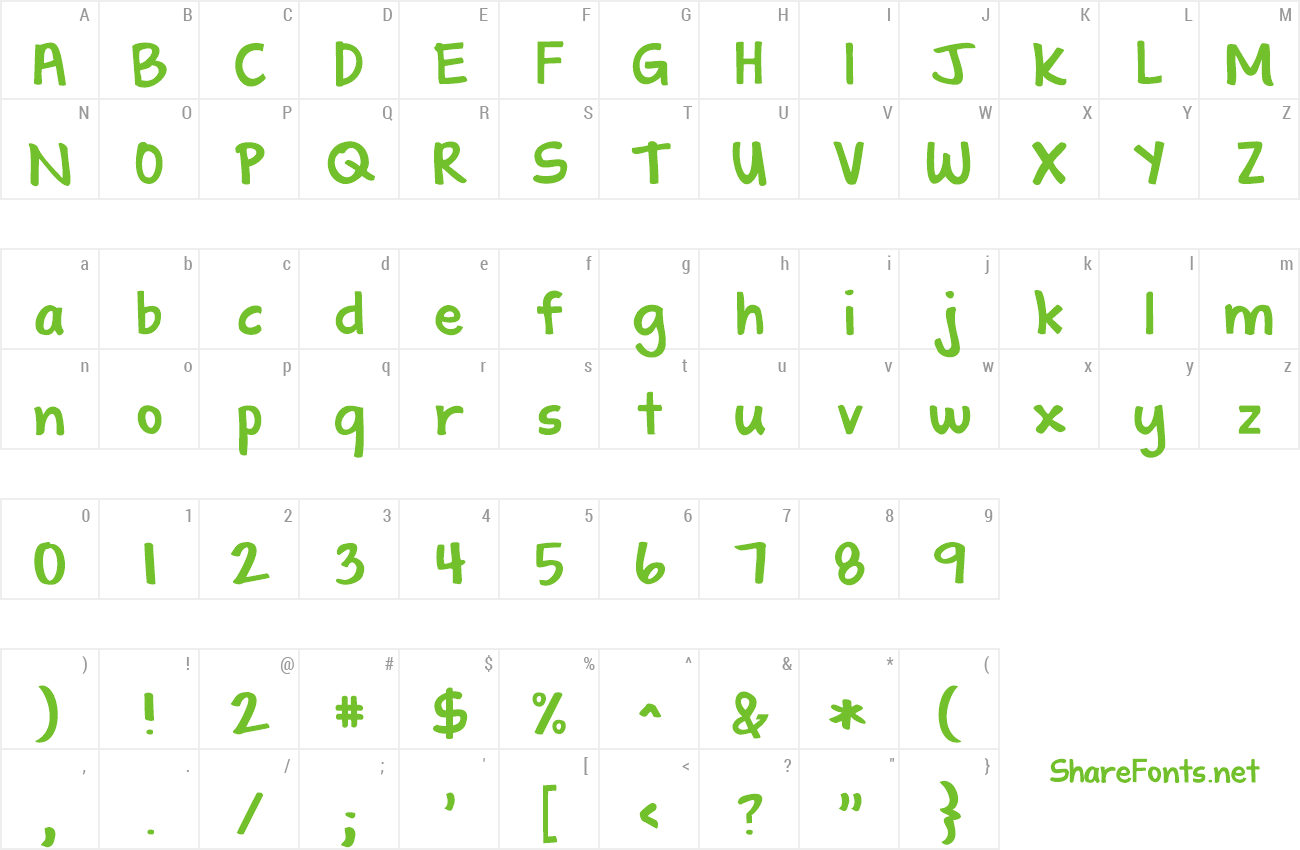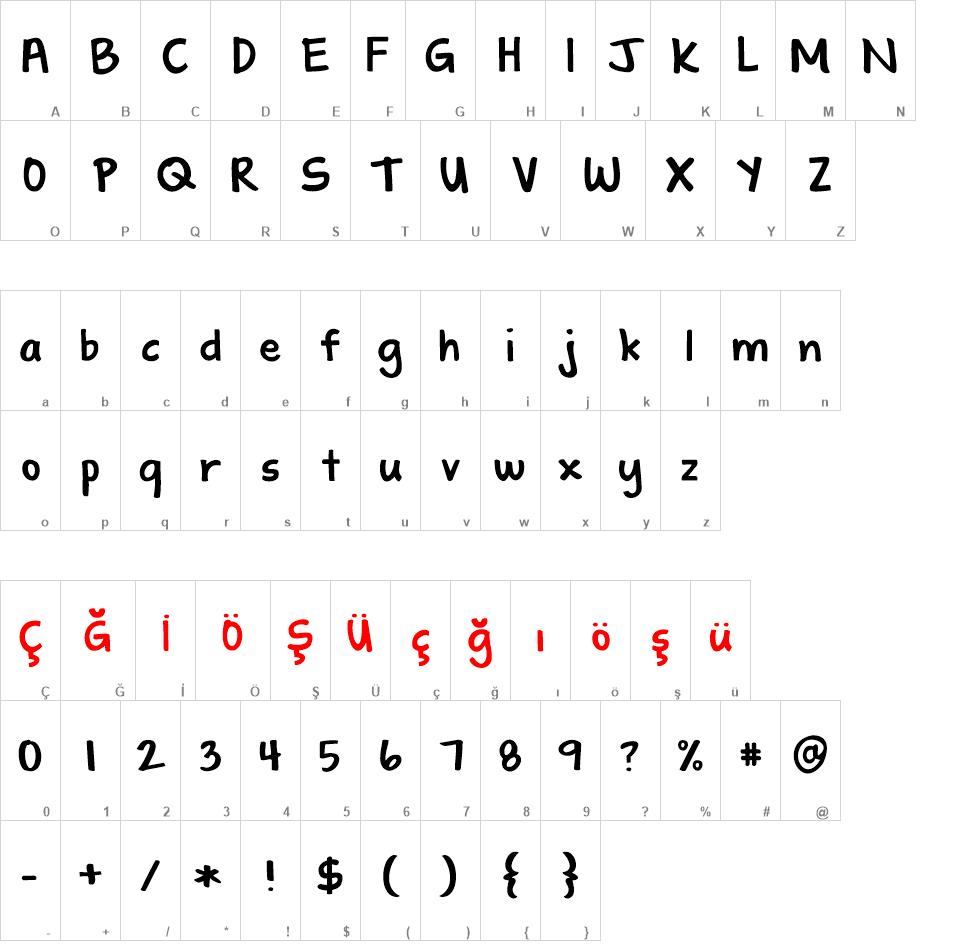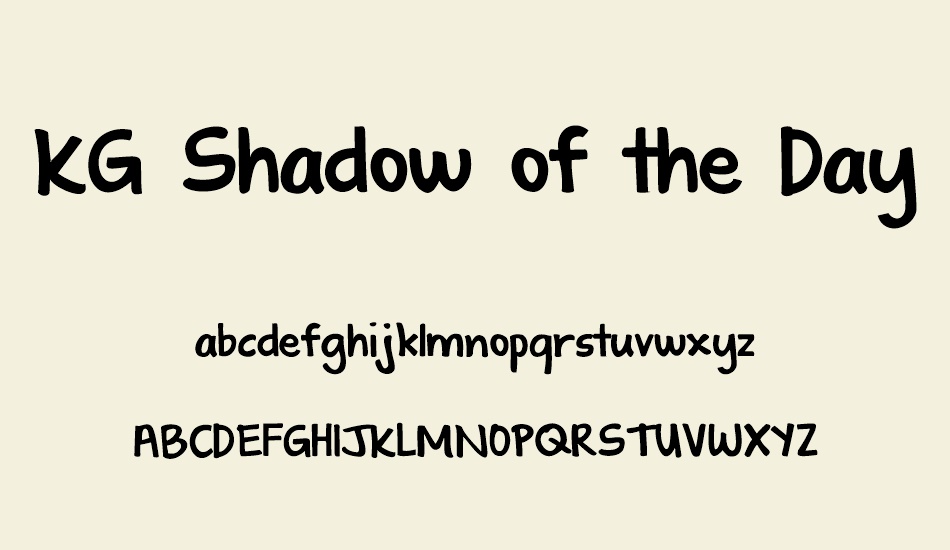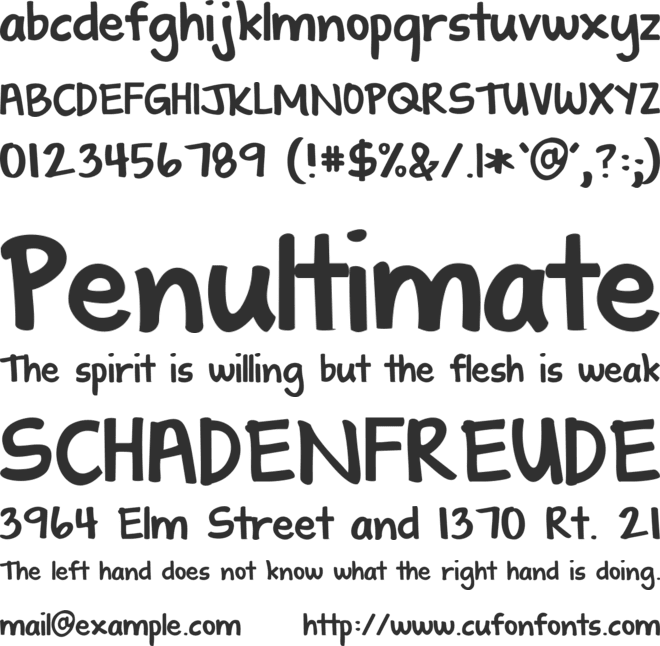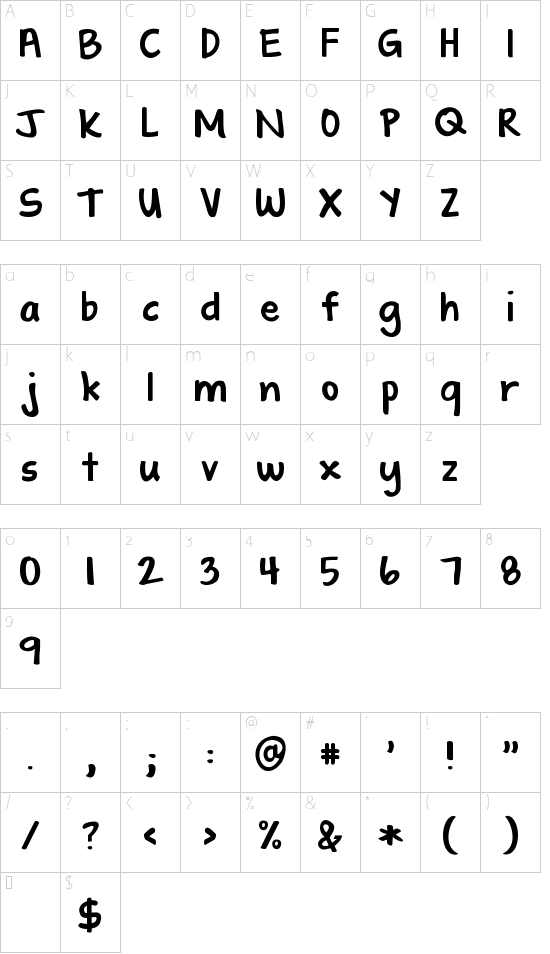
Kg Shadow Of The Day Font
Kg Shadow Of The Day Font - This typeface has two styles and was. Copyright (c) 2011 by kg shadow of the day. Kg shadow à € by kimberly geswein. 206,394 downloads (14 yesterday) 2 comments. Web designed by kimberly geswein, kg shadow of the day is a hand drawn font family. Kg shadow of the day.
Web designed by kimberly geswein, kg shadow of the day is a hand drawn font family. This typeface has two styles and was. Kg shadow à € by kimberly geswein. 206,394 downloads (14 yesterday) 2 comments. Kg shadow of the day. Copyright (c) 2011 by kg shadow of the day.
This typeface has two styles and was. Web designed by kimberly geswein, kg shadow of the day is a hand drawn font family. Kg shadow à € by kimberly geswein. Kg shadow of the day. Copyright (c) 2011 by kg shadow of the day. 206,394 downloads (14 yesterday) 2 comments.
This typeface has two styles and was. 206,394 downloads (14 yesterday) 2 comments. Copyright (c) 2011 by kg shadow of the day. Kg shadow of the day. Web designed by kimberly geswein, kg shadow of the day is a hand drawn font family.
Kg shadow of the day. Web designed by kimberly geswein, kg shadow of the day is a hand drawn font family. Kg shadow à € by kimberly geswein. 206,394 downloads (14 yesterday) 2 comments. This typeface has two styles and was.
Kg shadow of the day. 206,394 downloads (14 yesterday) 2 comments. This typeface has two styles and was. Copyright (c) 2011 by kg shadow of the day. Kg shadow à € by kimberly geswein.
206,394 downloads (14 yesterday) 2 comments. Copyright (c) 2011 by kg shadow of the day. Web designed by kimberly geswein, kg shadow of the day is a hand drawn font family. Kg shadow à € by kimberly geswein. Kg shadow of the day.
This typeface has two styles and was. Kg shadow of the day. Kg shadow à € by kimberly geswein. 206,394 downloads (14 yesterday) 2 comments. Copyright (c) 2011 by kg shadow of the day.
Kg shadow à € by kimberly geswein. Web designed by kimberly geswein, kg shadow of the day is a hand drawn font family. 206,394 downloads (14 yesterday) 2 comments. Kg shadow of the day. Copyright (c) 2011 by kg shadow of the day.
Copyright (c) 2011 by kg shadow of the day. Kg shadow à € by kimberly geswein. Kg shadow of the day. This typeface has two styles and was. 206,394 downloads (14 yesterday) 2 comments.
Kg shadow à € by kimberly geswein. 206,394 downloads (14 yesterday) 2 comments. Copyright (c) 2011 by kg shadow of the day. Web designed by kimberly geswein, kg shadow of the day is a hand drawn font family. Kg shadow of the day.
Kg shadow à € by kimberly geswein. Web designed by kimberly geswein, kg shadow of the day is a hand drawn font family. Kg shadow of the day. 206,394 downloads (14 yesterday) 2 comments. This typeface has two styles and was.
Web Designed By Kimberly Geswein, Kg Shadow Of The Day Is A Hand Drawn Font Family.
Kg shadow à € by kimberly geswein. 206,394 downloads (14 yesterday) 2 comments. Copyright (c) 2011 by kg shadow of the day. This typeface has two styles and was.